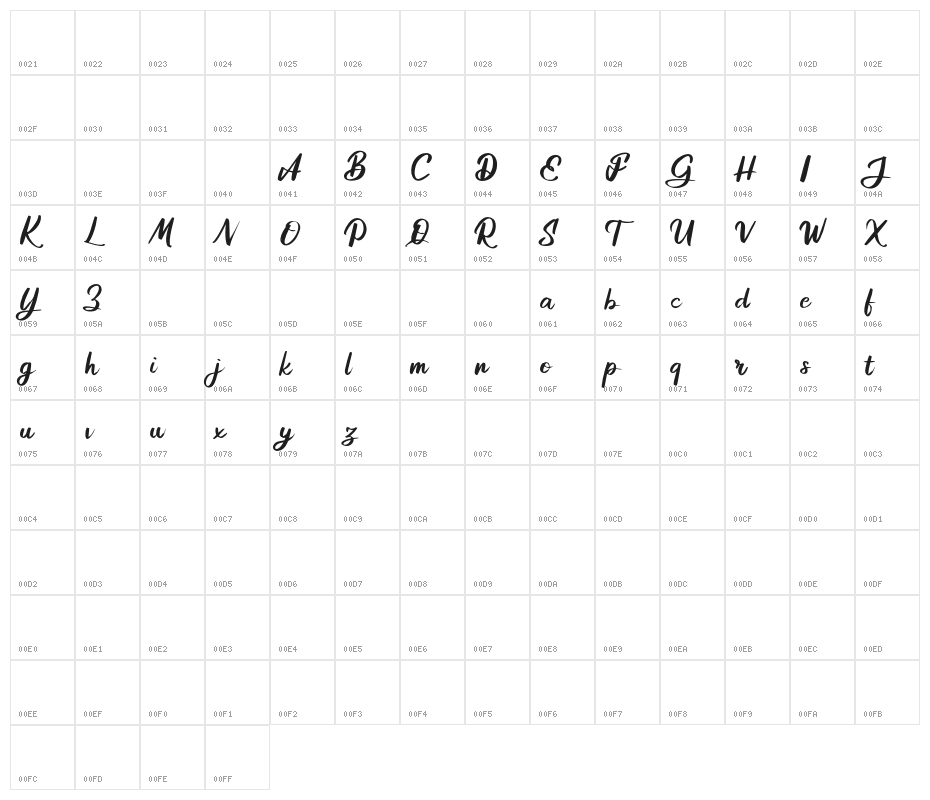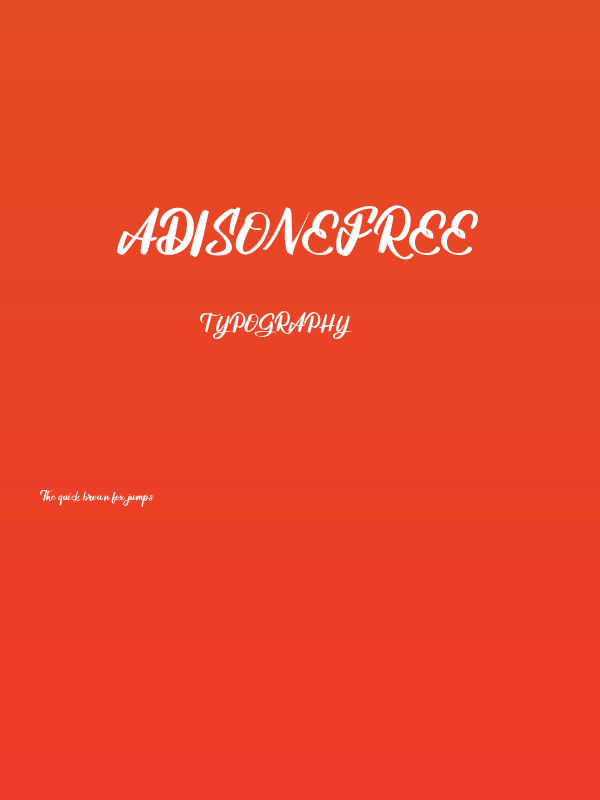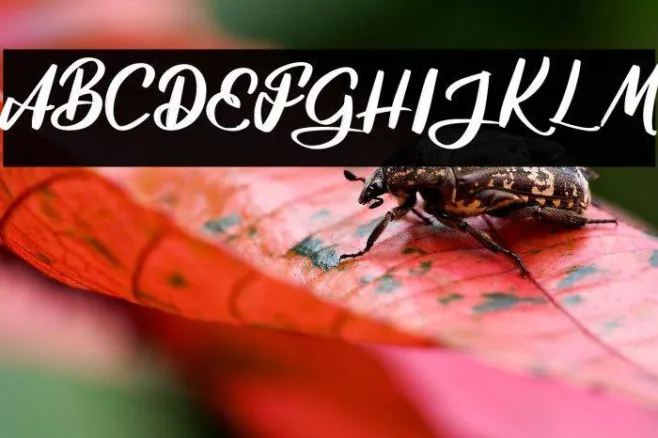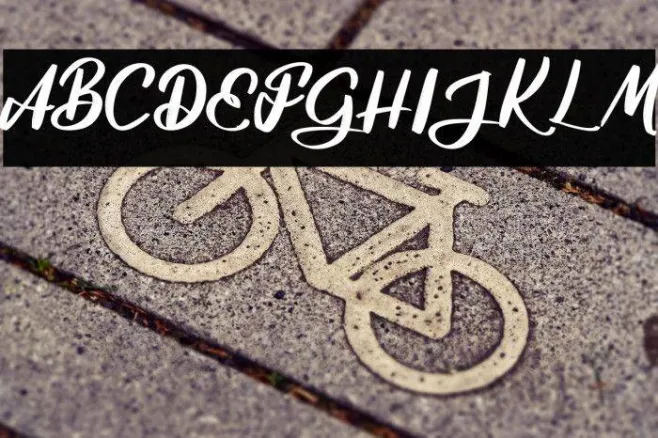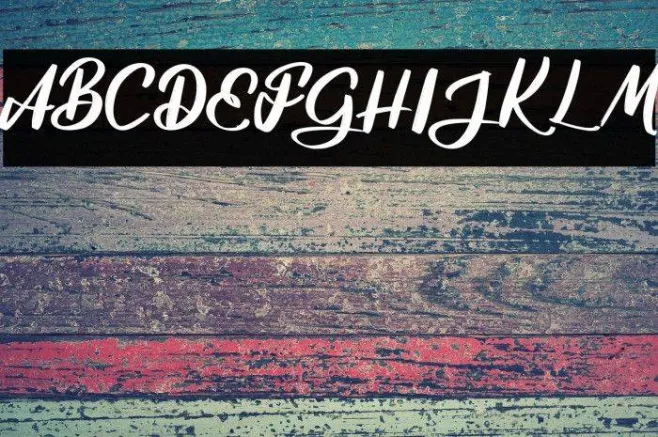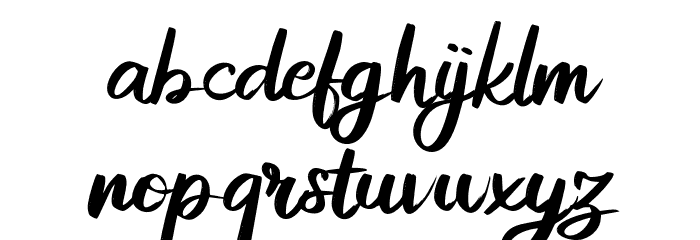
AdisoneFREE Font
AdisoneFREE Description
This font features a flowing, cursive style with elegant, sweeping strokes that give it a dynamic and lively appearance. The uppercase letters are bold and prominent, with distinctive loops and curves that add a touch of sophistication. The lowercase letters maintain a consistent style, with smooth connections between characters, enhancing the script's fluidity. The font's overall design is reminiscent of traditional calligraphy, yet it incorporates modern elements that make it suitable for contemporary use. The characters are well-spaced, ensuring readability while maintaining an artistic flair. This font is ideal for projects that require a personal or creative touch, such as invitations, greeting cards, or branding materials.